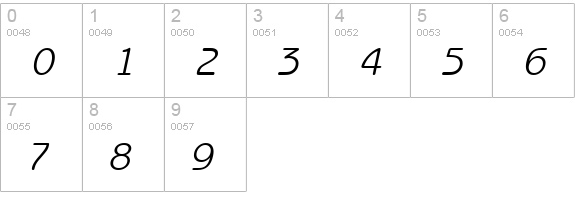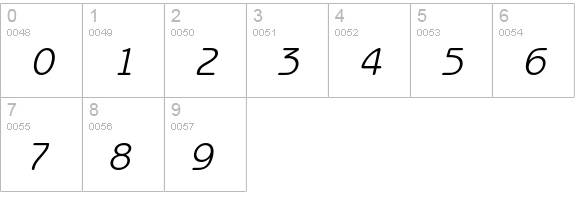
Beagle Italic is a distinctive, italic variant in the Beagle typeface family \xE2\x80\x94 well suited to design and typography projects.
Beagle Italic font exudes a charming and playful vibe with its unique italic style. The elegant curves and slanted lines of this font add a touch of sophistication to any design project. Whether you're creating invitations, posters, or branding materials, Beagle Italic is sure to make a statement. Best of all, Beagle Italic is available for free download at FontsMarket.com. This means you can easily access this stylish font and incorporate it into your creative projects without any cost. Don't miss out on the opportunity to enhance your designs with the beauty of Beagle Italic. Download it today and let your creativity shine!